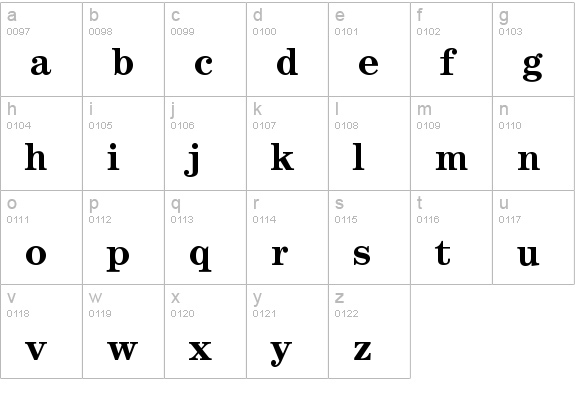
CenturyEF-Bold is a strong, high-contrast variant in the CenturyEF typeface family \xE2\x80\x94 well suited to headlines, attention-grabbing titles, and strong calls-to-action.
CenturyEF-Bold is a bold and dynamic font that exudes confidence and modernity. With its strong and impactful design, this font is perfect for making a statement in any project. It commands attention and adds a touch of sophistication to your designs. The clean lines and sharp edges of CenturyEF-Bold give it a sleek and professional look that is sure to impress. The best part? CenturyEF-Bold is available for free download at FontsMarket.com. You can easily access this stylish font and incorporate it into your projects without any cost. Whether you're working on a branding project, advertising campaign, or simply want to add a bold touch to your designs, CenturyEF-Bold is the perfect choice. Download it today and elevate your designs with this striking and versatile font.